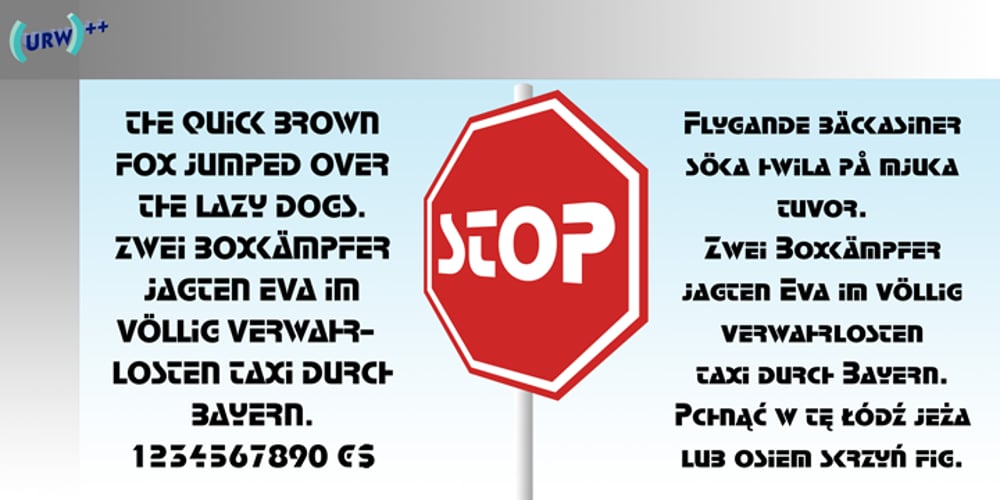
Stop Font Family was designed by Aldo Novarese and published by URW Type Foundry. Stop contains 5 styles and family package options. Bauhaus 93 is a decorative font with simple geometric forms and even strokes that give the font a clean and distinctive look. This version is licensed from URW++ and is compatible with the version that Microsoft included in versions of Microsoft Office and Publisher.